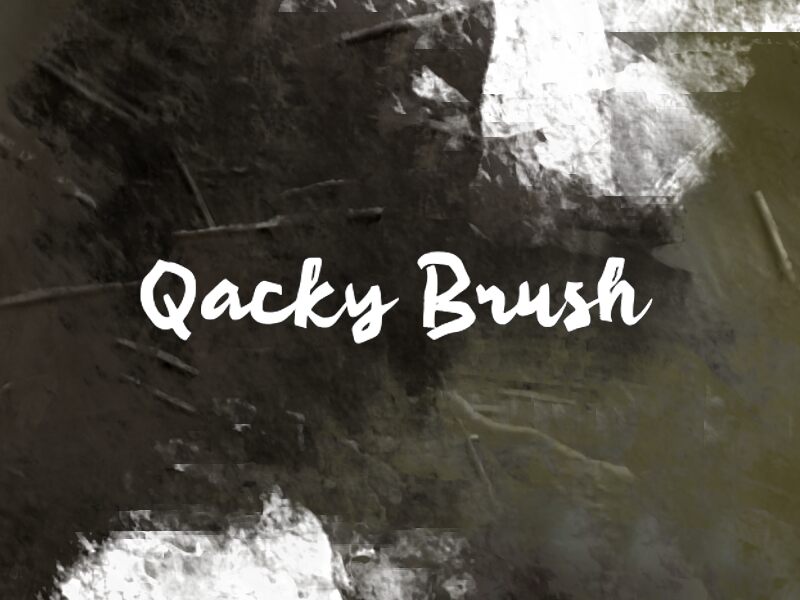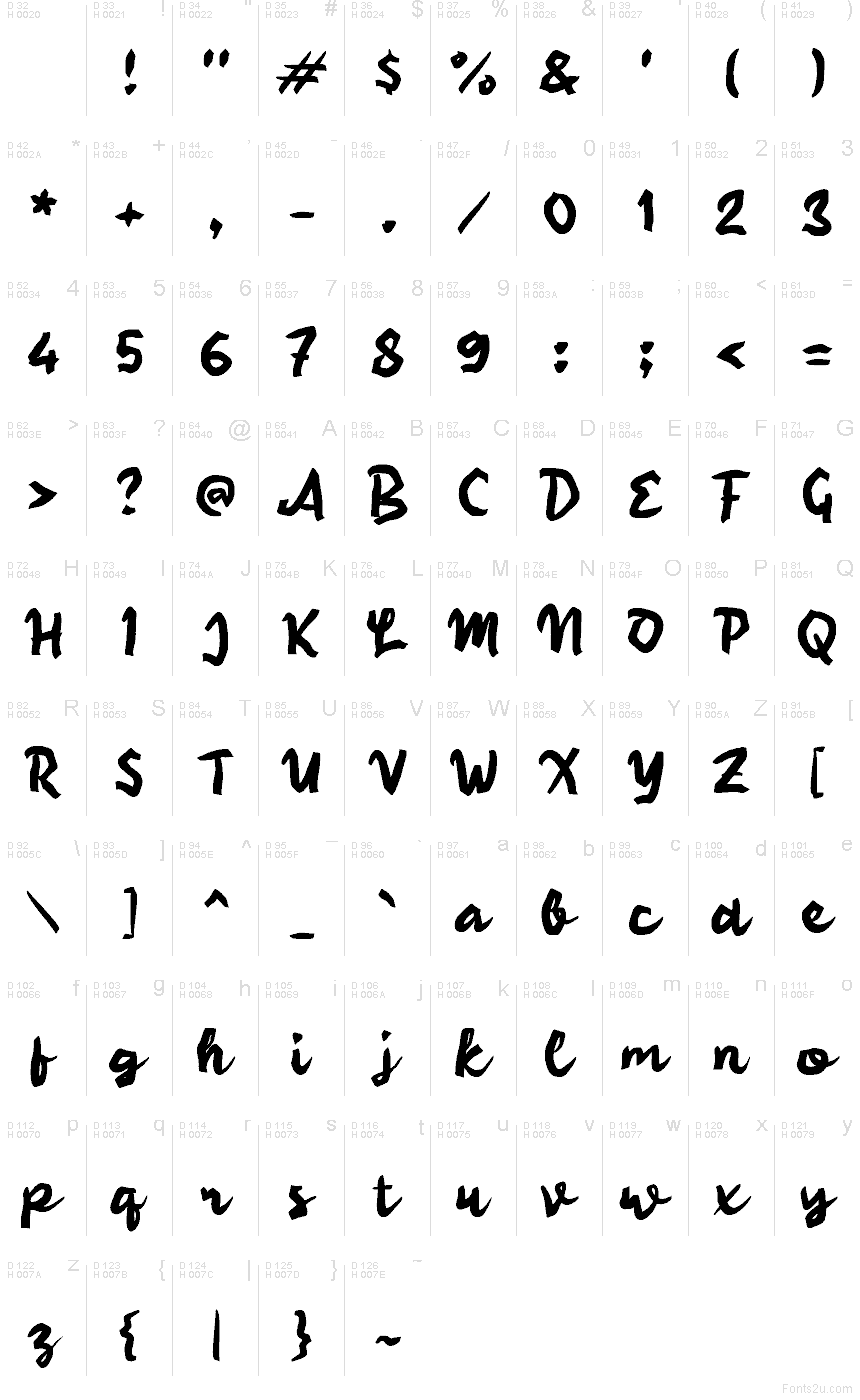
Qacky Brush
Qacky Brush font by wepfont.com is a free brush script typeface that captures the feel of quick, confident strokes straight from a loaded marker. Letters lean forward with a casual slant, edges slightly rough and inky, giving you that handmade energy without looking messy. The spacing is tight and lively, so words feel like they’ve been written in one impulsive sweep across the page.
Using Qacky Brush, headlines jump out with a bold, streetwise personality that works beautifully for posters, merch, social graphics, packaging, logotypes, and event flyers. This free font shines when set large, then paired with a clean sans serif for small supporting text. Use strong contrast—big, brushy titles and simple, quiet body copy—to let Qacky Brush do the loud talking.